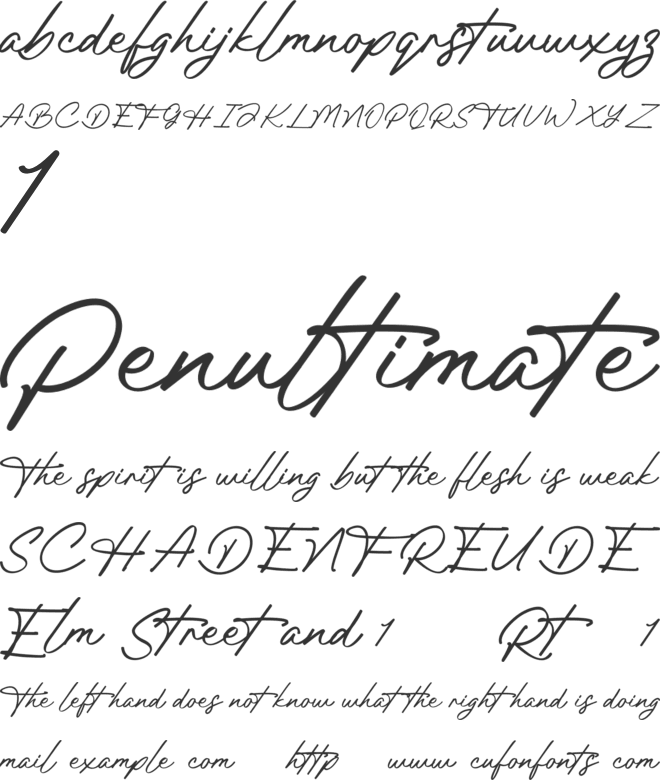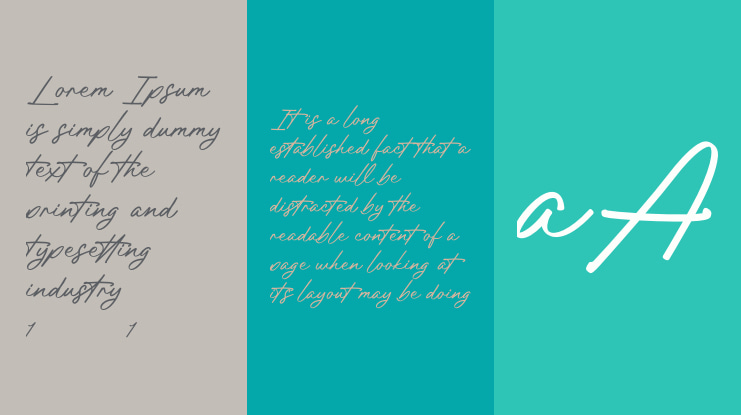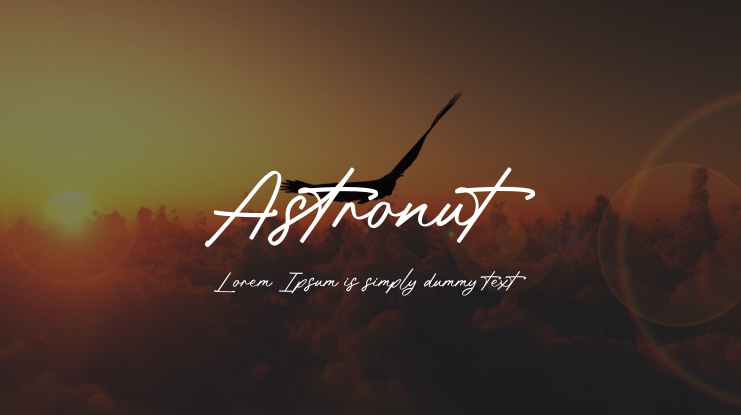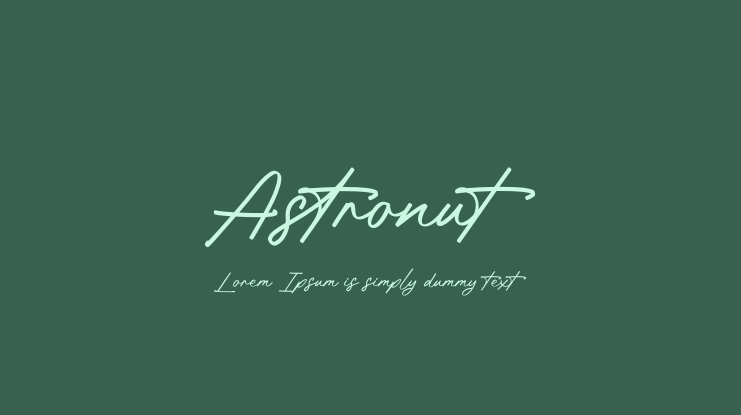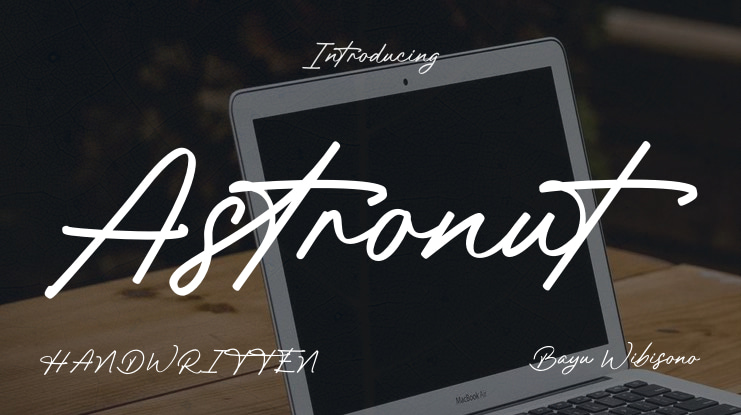
Astronut Font
Astronut Signature is an elegant, modern, and organic script font. Fall in love with its ravishing style, and use it to create awesome logos, branding designs, signatures, web fonts, stationery art, eye-catching social media posts, and more!